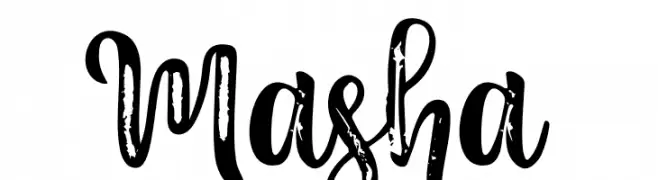
A bold, brush-textured font with a hand-painted, artistic style.
A bold, distressed font with a grunge, vintage style.
A sophisticated script font with elegant, flowing characters and a calligraphic touch.
A bold and striking font with thick strokes, ideal for impactful headlines.
A bold, flowing script font with a handwritten feel and elegant style.
A lively cursive script font with fluid, interconnected characters.